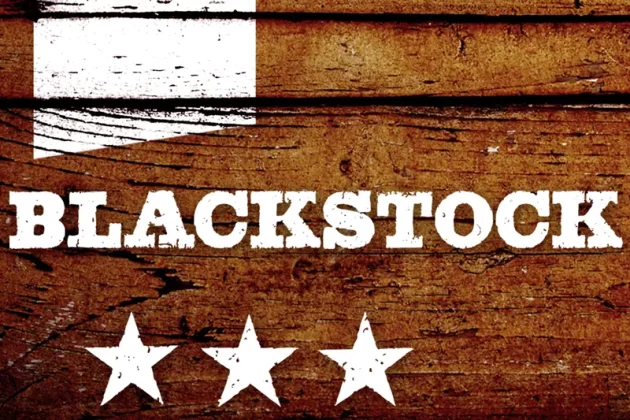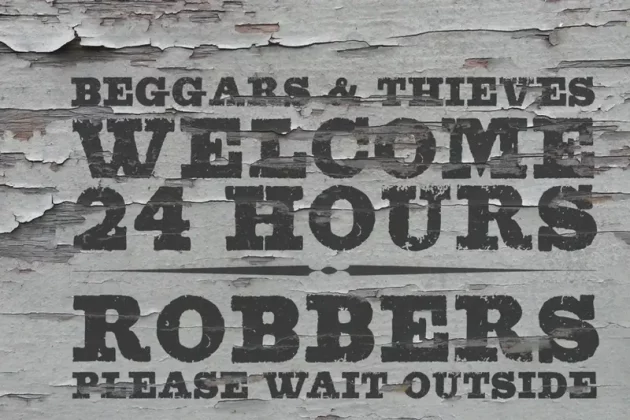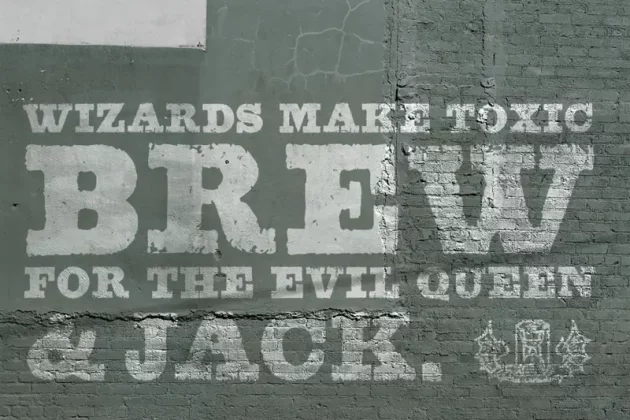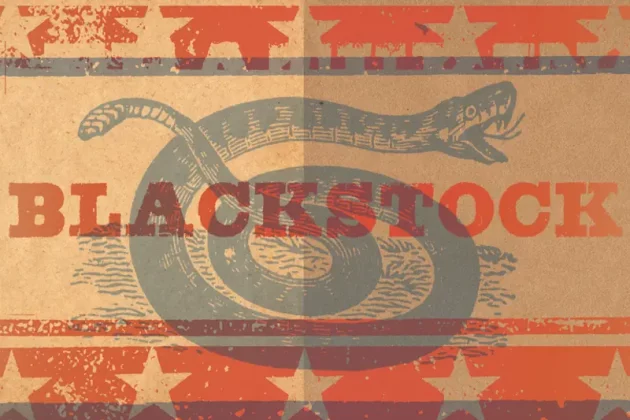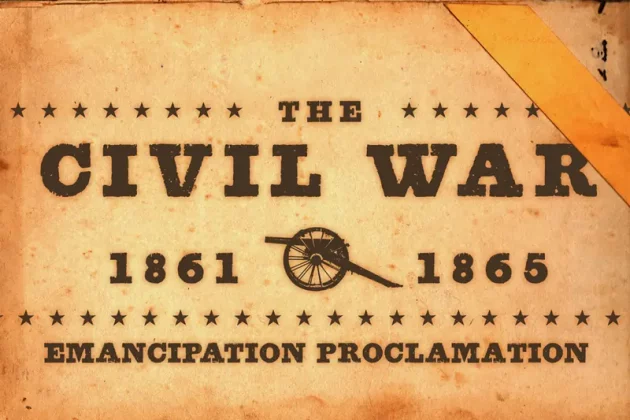
About Blackstock Font
Blackstock™ has 52 OpenType features that automatically substitute a unique pair of distressed characters when any upper or lower case letter is keyed twice in a row, as well as features for Old Style Numerals and Small Caps.